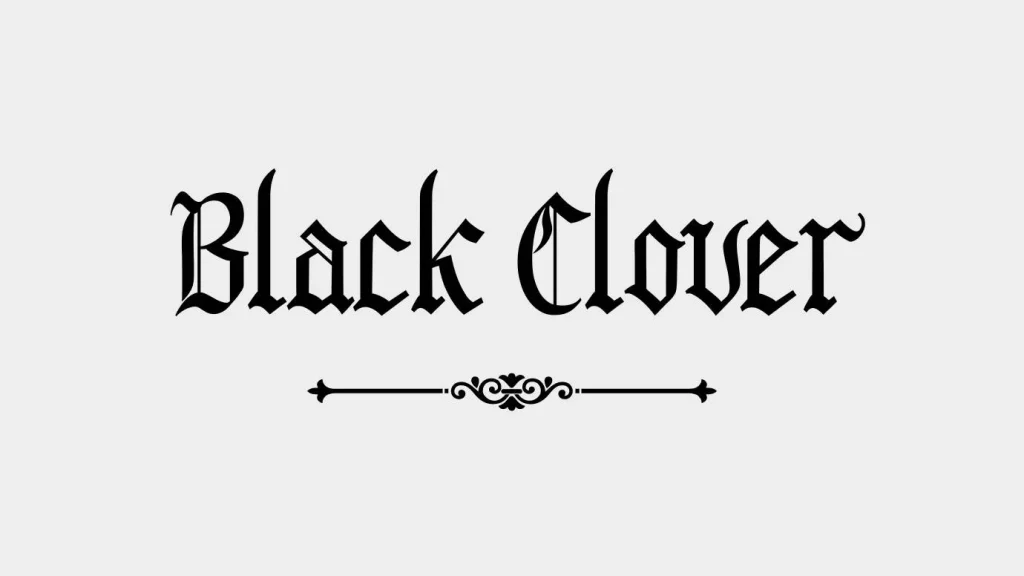
The text style may be an incredible choice to extend the noticeable quality. Although the typography is unique, the essential components are great. It is an
The text style may be an incredible choice to extend the noticeable quality. Although the typography is unique, the essential components are great. It is an incredible textual style to create a fun design.
Advantages of Using Black Clover Font
The lovely typeface is better for promotional designs, banners, and fancy-label designs. You can also choose this typeface for your logo design project. This typeface can be used for movie symbols, spirited movie symbols, video game logos, and other associated use.
The typeface is ideal for branding, books, and posters that need a sharp, elegant tone. A cool and soft typeface like this one is perfect for HD graphics and video design. It can also be combined with other typefaces to improve your designs' readability.
In addition to making posters, social media posts, and animated logos, you can also use this typeface. It can also be used in headings and captions on websites and other design pages. When you combine this typeface with the paris font, you have the potential to create stunning displays.
This gorgeous typeface has a place in the category of a fancy typeface.
It could be a tool that makes a difference for its client to change over their simple content into a unique style.